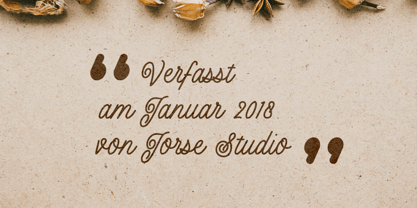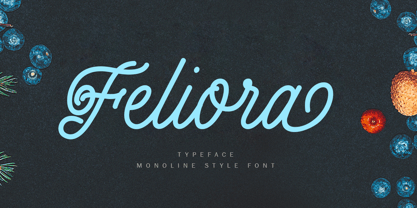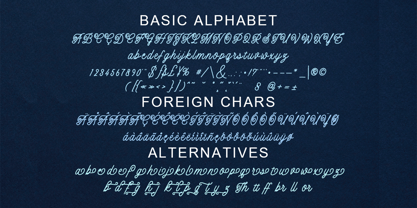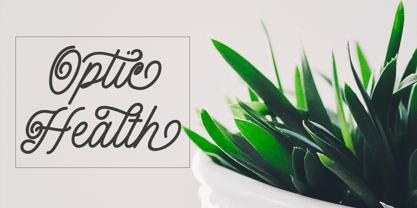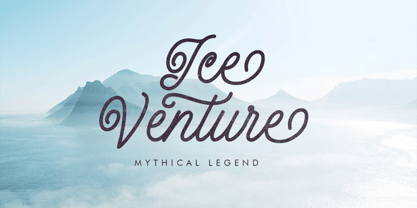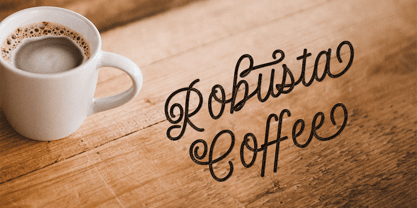
Feliora
by Jorsetype
The Feliora Font Family was designed by Ront Jorse and published by Jorsetype. Feliora contains 1 styles. More about this family
Feliora is a beautiful and elegant script font inspired by modern calligraphy and natural handwritten strokes. Designed with smooth curves, flowing connections, and graceful letterforms, Feliora brings a perfect balance between sophistication and readability. Every character is crafted to create a natural handwritten feel, making it ideal for designs that need a personal and stylish touch. Feliora works perfectly for a wide range of creative projects such as wedding invitations, branding, logos, social media graphics, packaging, greeting cards, and typography quotes. Its fluid strokes and elegant rhythm make your text look refined, warm, and expressive. Whether used for headlines or decorative text, Feliora adds a charming and timeless handwritten character that elevates any design. Features Elegant script style Smooth and natural handwriting flow Perfect for branding, invitations, and logos Stylish and modern calligraphy feel
Designers: Ront Jorse
Foundry: Jorsetype